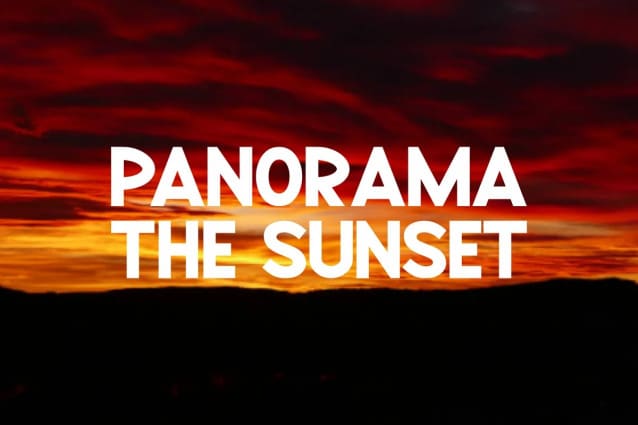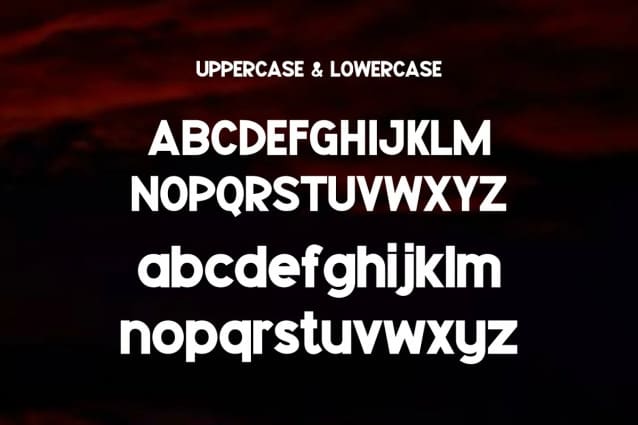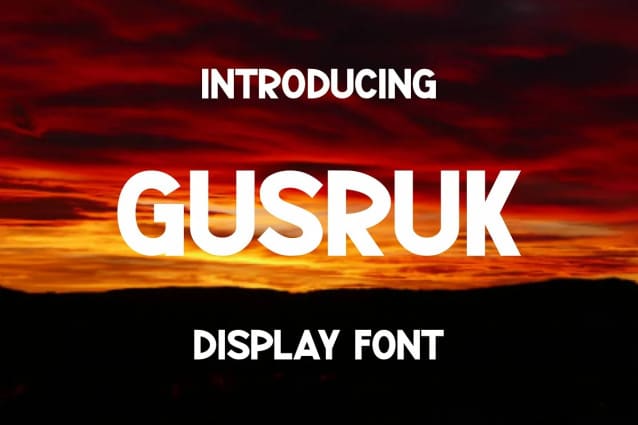
Gusruk Font
Gusruk Font is an incredibly unique display font. Masterfully designed to become a true favorite, this font has the potential to bring each of your creative ideas to the highest level!